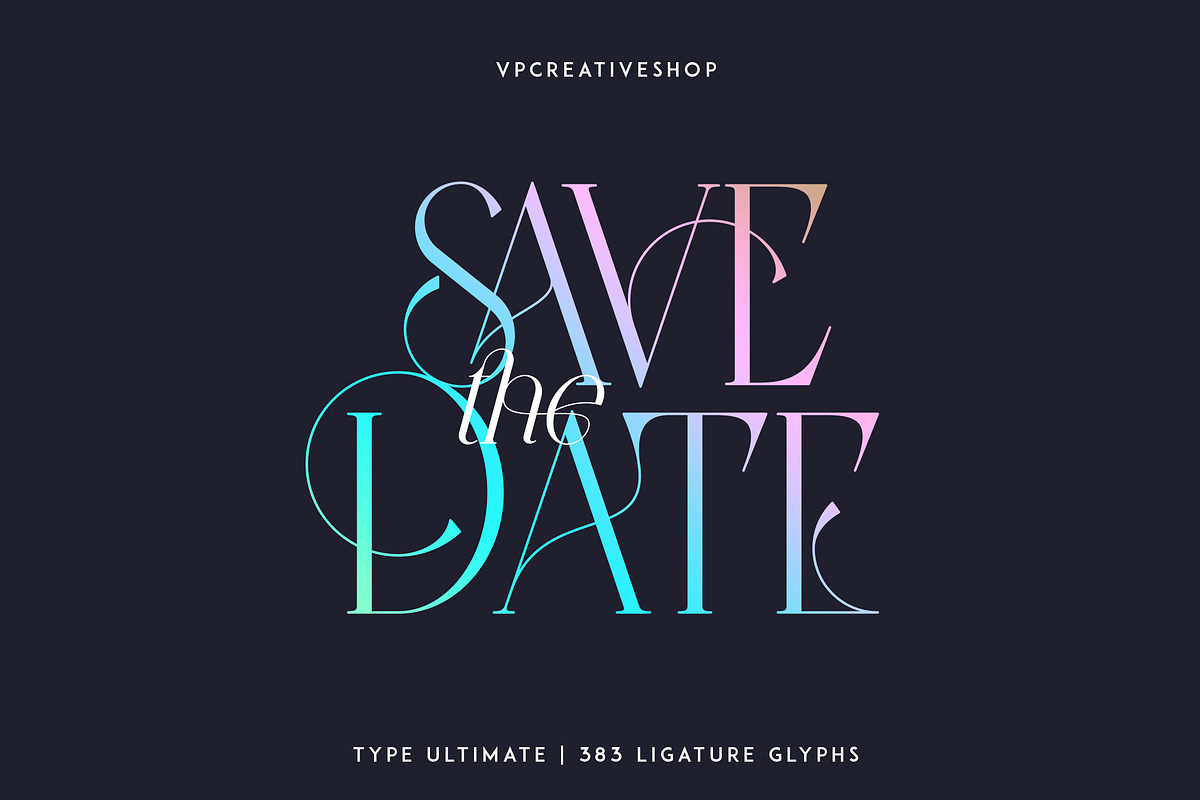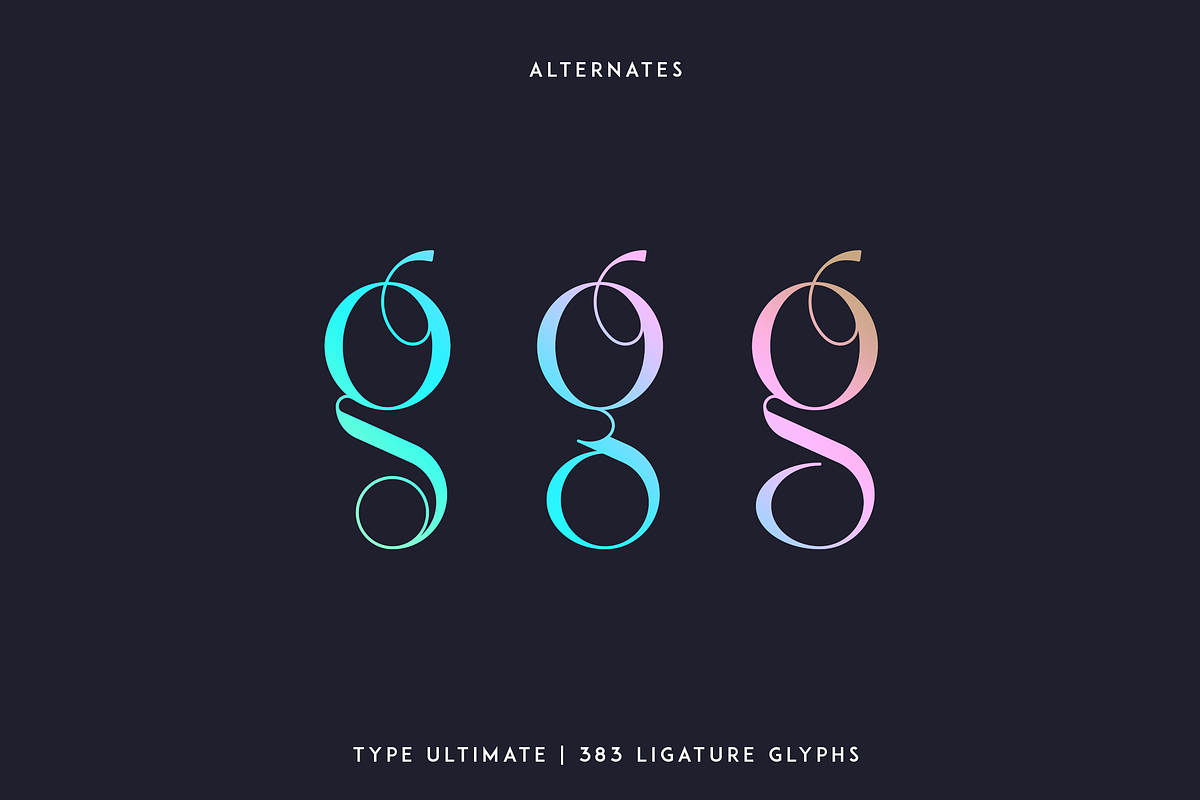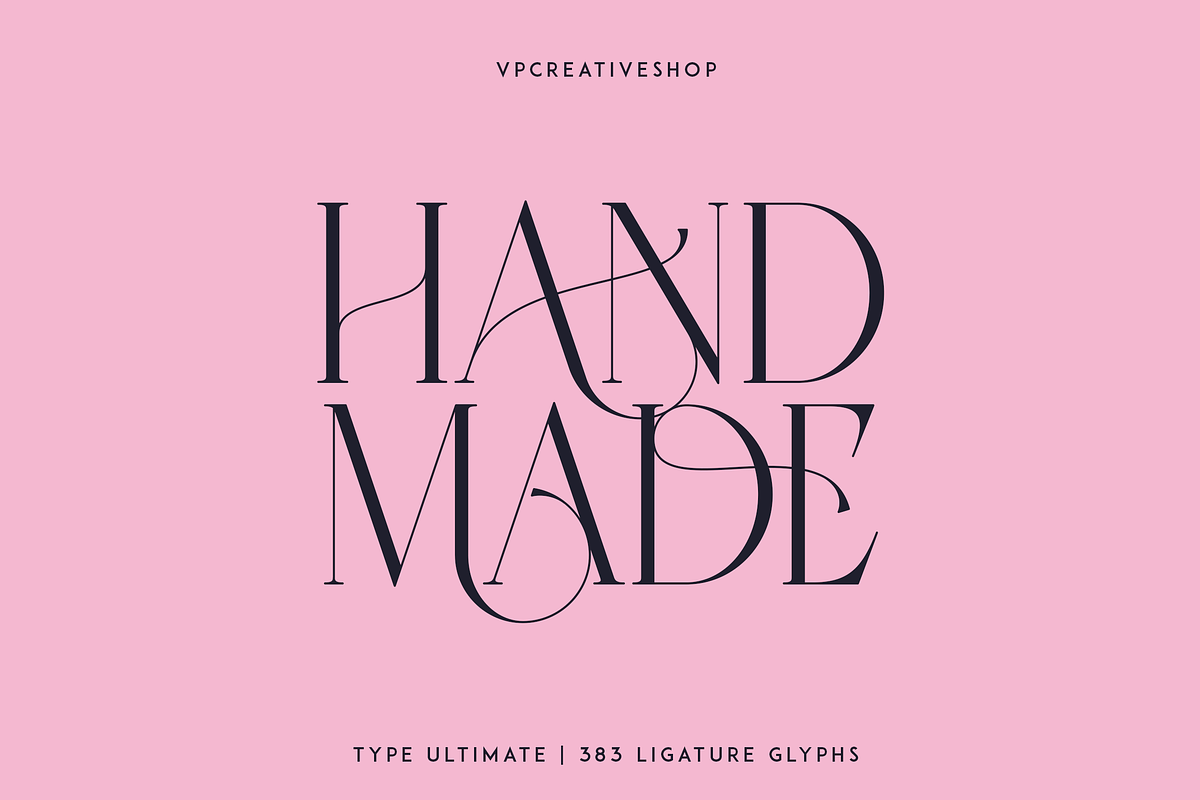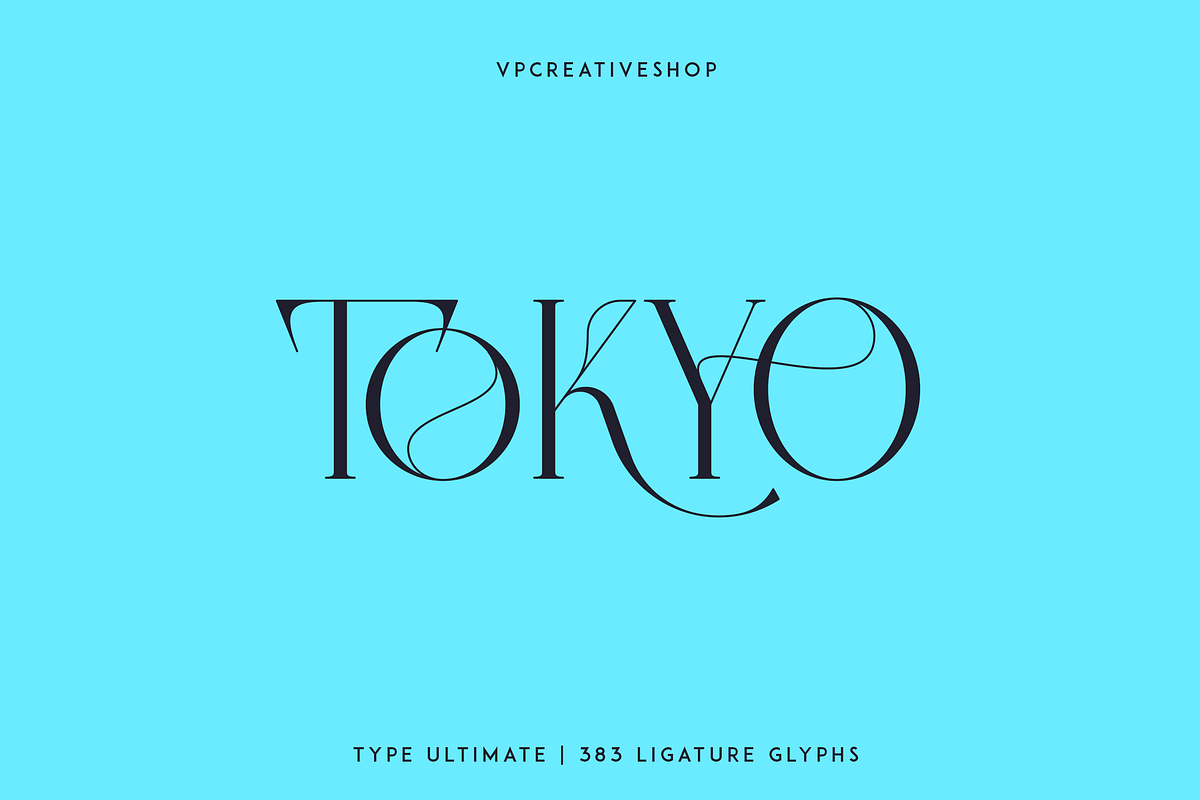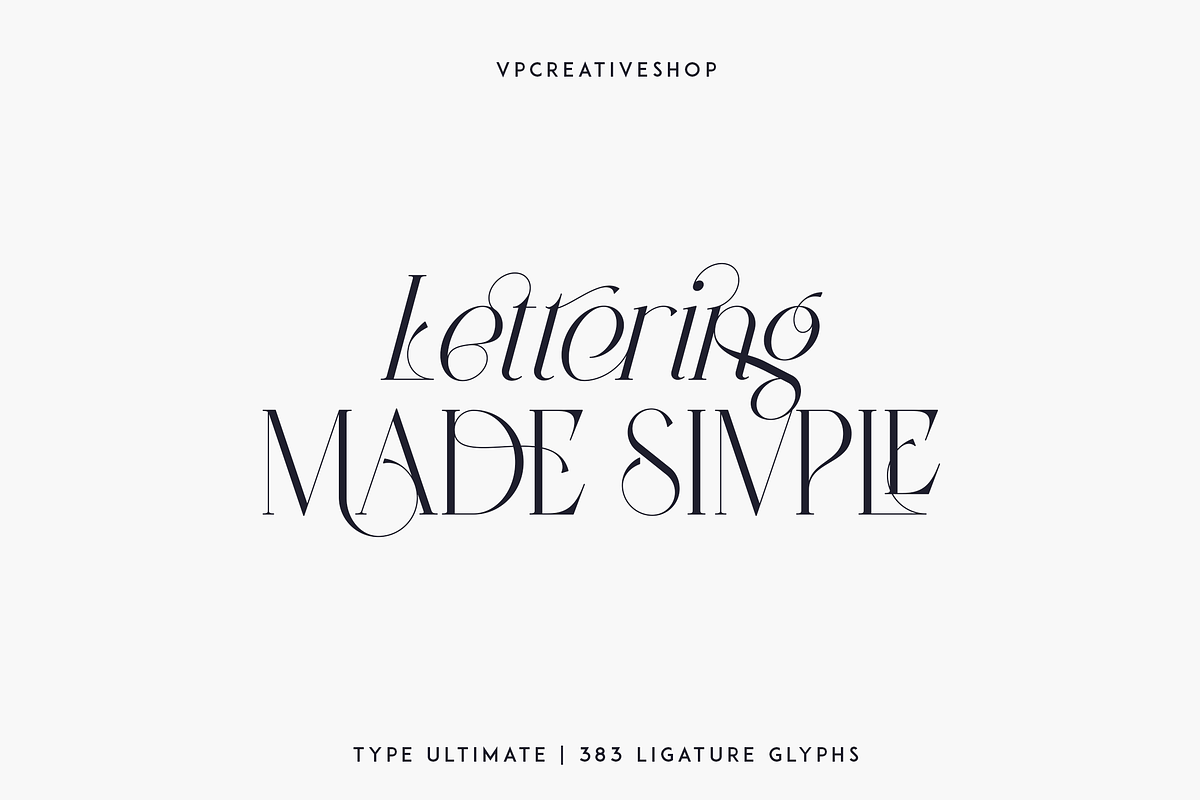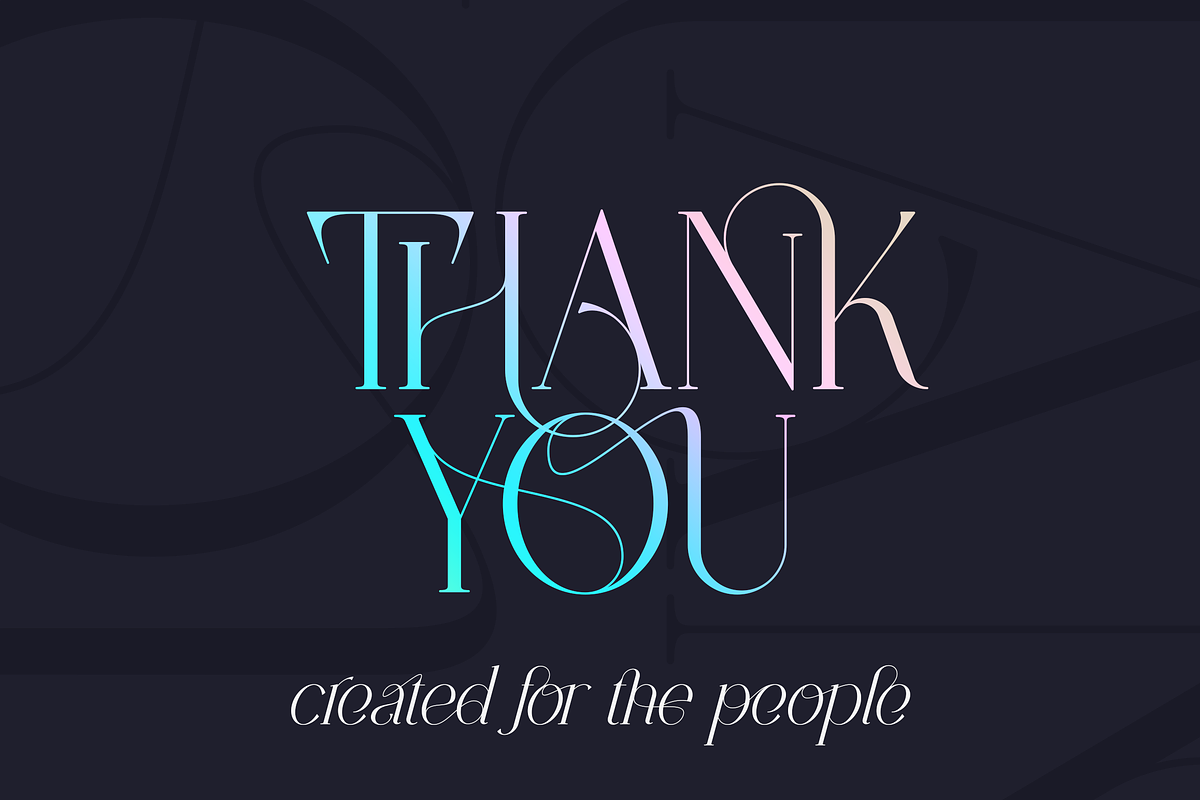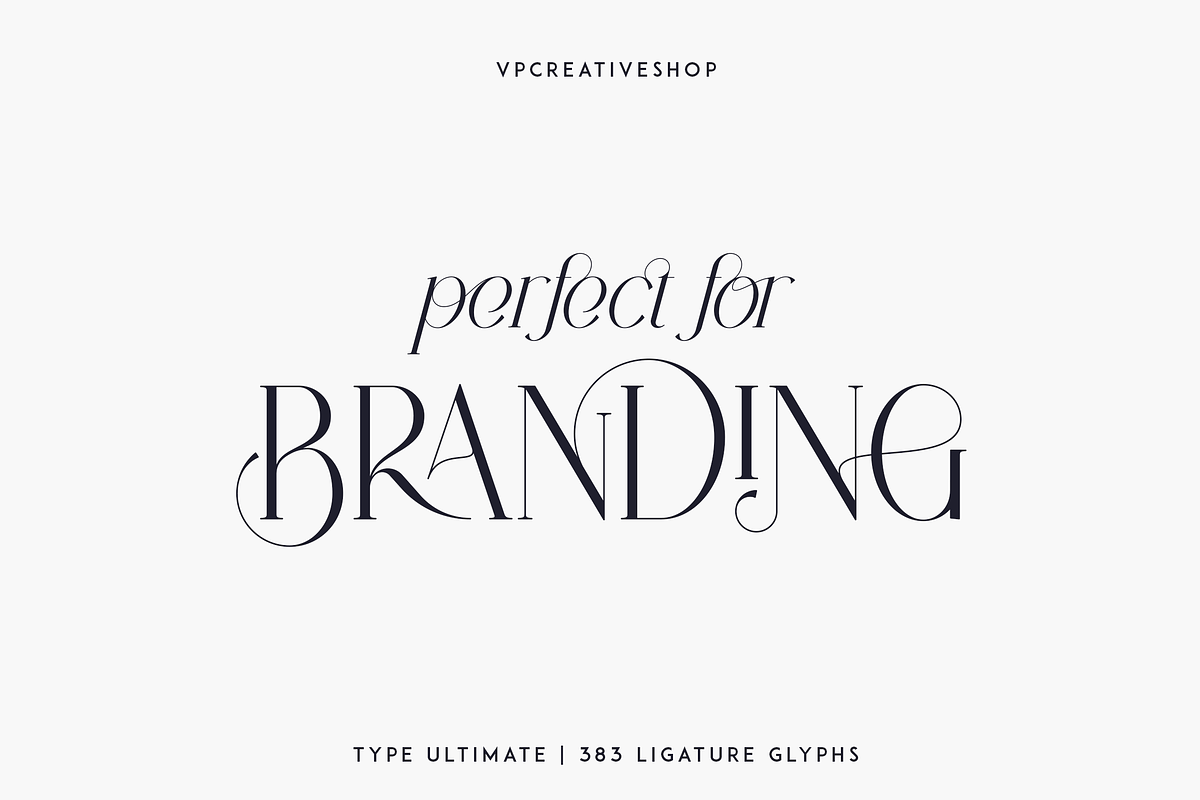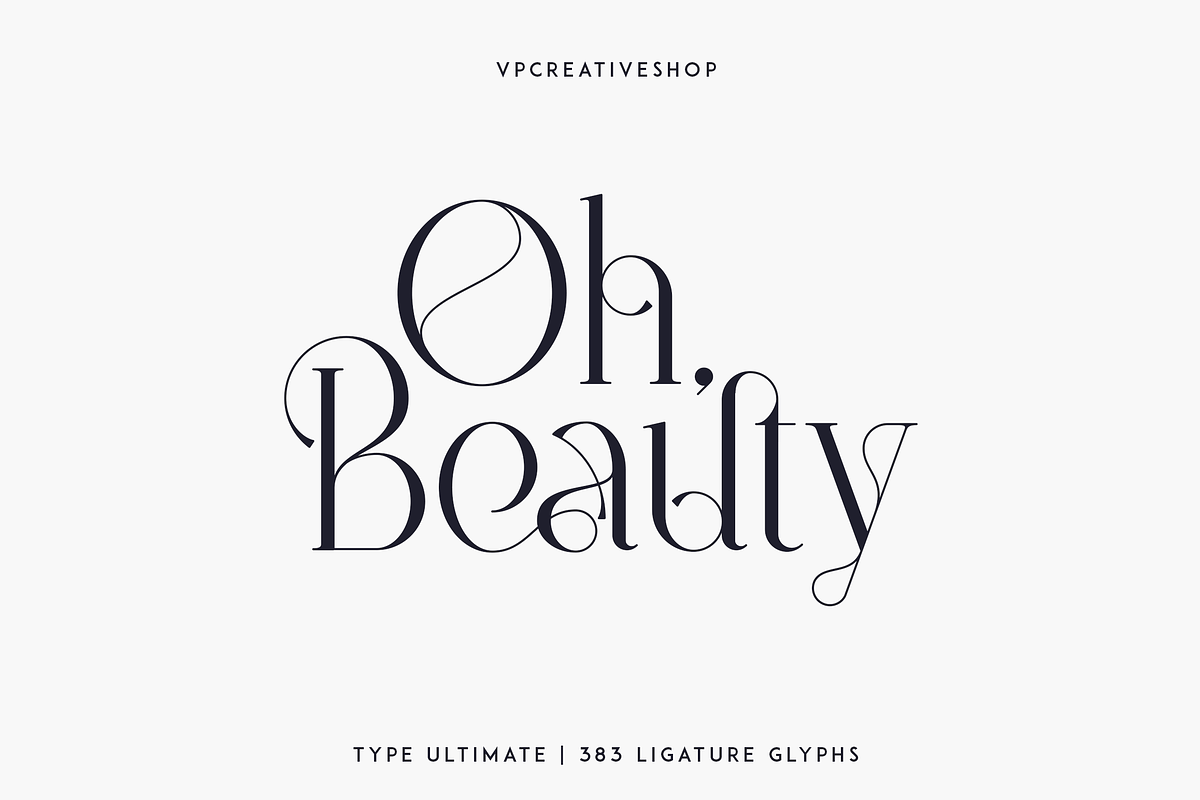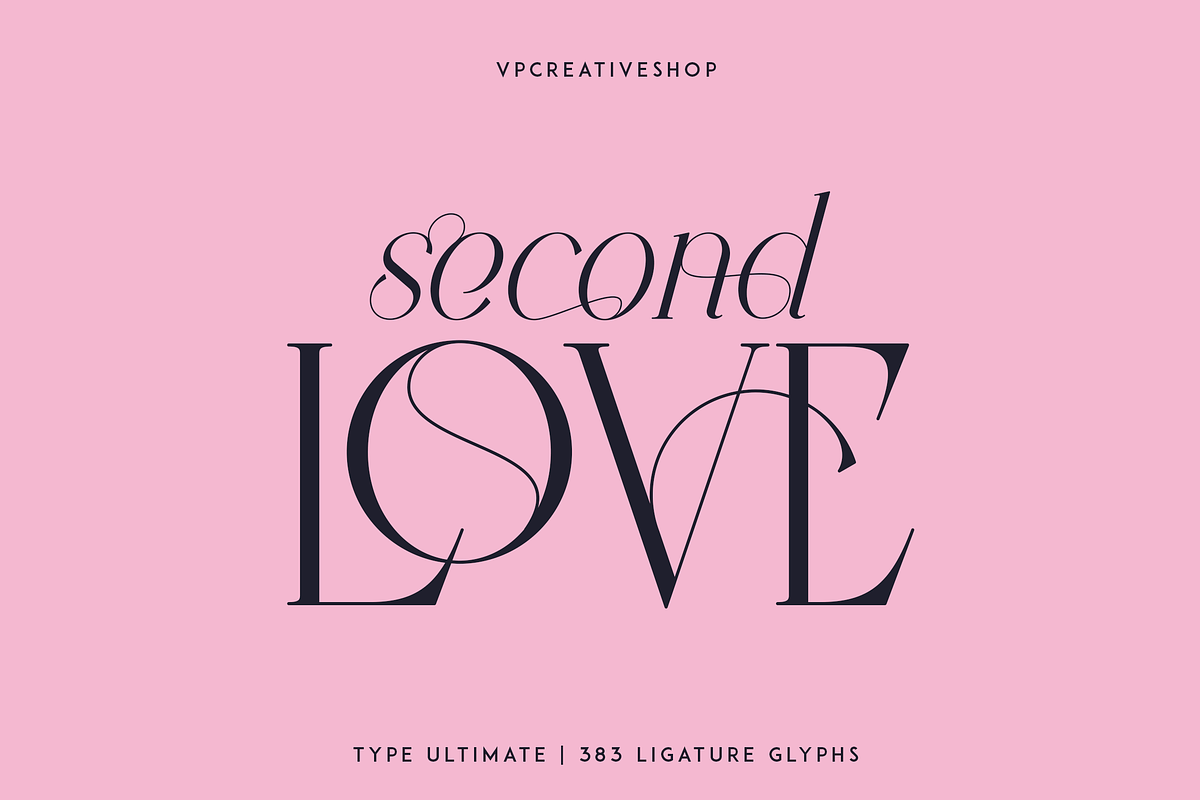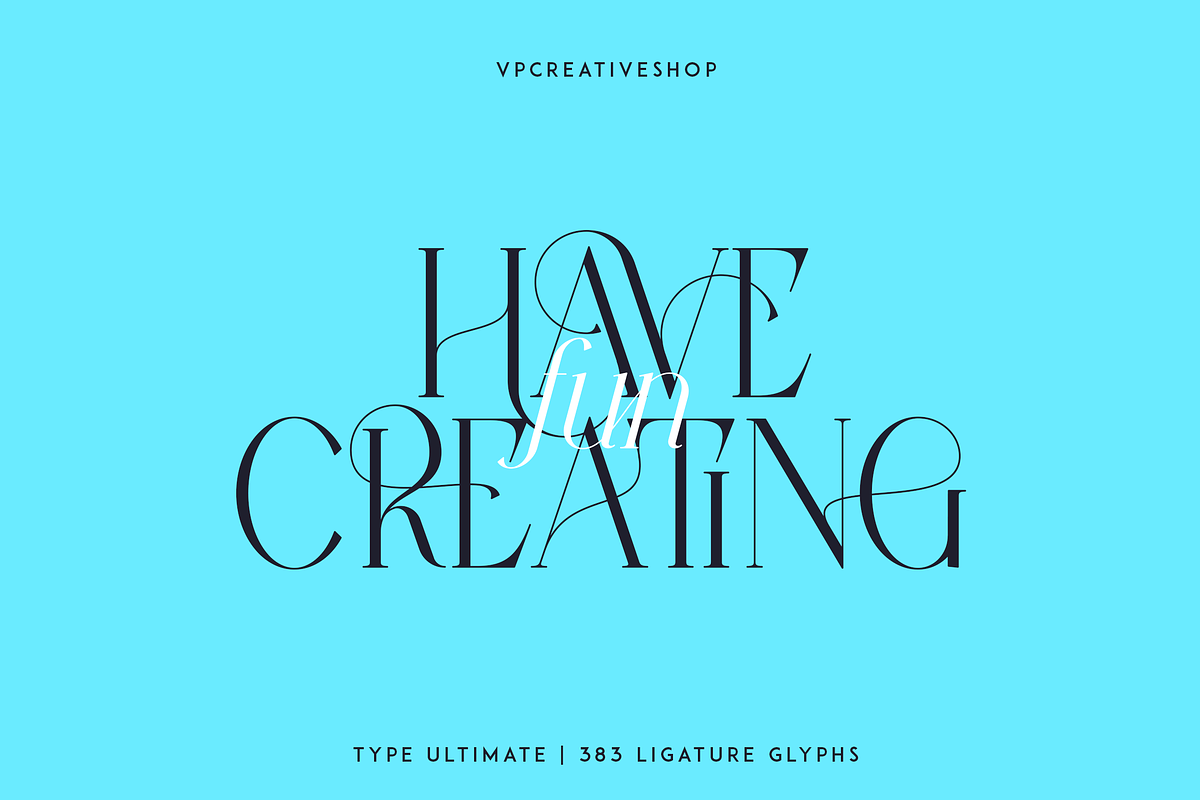
Type Ultimate - serif logo font
Type Ultimate is an exquisite serif font that combines elegance and sophistication. It comes in regular and italic versions, each containing a stunning collection of 383 ligature glyphs and alternate glyphs, as well as 26 swashes for both regular and italic versions. With its extensive character set, Type Ultimate supports a wide range of languages, making it a versatile choice for various projects.
This font is perfect for creating a memorable logo, establishing a strong brand identity, and making headlines that stand out. Its timeless and refined design also makes it an excellent choice for elegant wedding invitations and other formal occasions. Overall, Type Ultimate is a font that exudes beauty and refinement, adding a touch of sophistication to any project it's used in.
Uppercase - AB,AC,AD,AG,AK,AL,AM,AN,AP,AR,AS,AT,AV,AY,BE,BL,BO,BU,CE,CH,CK,CO,CT,DE,DI,DO,EA,ED,EE,EF,EI, EL,EM,EN,EP,ER,ES,ET,EV,EX,EY,FA,FE,FF,FI,FO,FR,FT,FU,GA,GE,GH,GO,GR,HA,HE,HI,HO,HT,KE,KI,KN,LA, LD,LE,LF,LI,LL,LO,MA,ME,MI,MM,MO,MP,MU,NA,NC,ND,NE,NG,NK,NO,NS,NT,NY,OA,OD,OK,OL,OM,ON, OO,OP,OR,OS,OT,OU,OW,PA,PE,PL,PO,PP,PR,RA,RD,RE,RI,RO,RR,RS,RT,RY,SA,SE,SH,SO,ST,SU,TA,TE,TH,TI, TL,TO,TR,TS,TT,TU,UG,UL,UN,UR,US,UT,VE,VI,WE,WH,WI,WO,YO,YS,MEN,WER,FRO,RON,ROM,THE,AND, ING,HER,HAT,HIS,THA,ERE,FOR,ENT,ION,TER,WAS,YOU,ITH,VER,ALL,THI,TIO,OUL,ULD,IGH,GHT,AVE, HAV,ICH,HIC,HIN,HEY,ATI,EVE,HING,WERE,FROM,THAT,THER,TION,OULD,IGHT,HAVE,THIS,THIN,THEY, ATIO,EVER,MENT
Lowercase - ab,ad,ag,ai,ak,al,am,an,ap,as,at,av,ay,ba,be,bl,bo,bu,ca,ce,ch,ck,co,ct,de,di,do,ea,ec,ed,ee,ef,eg,ei,ej,el, en,ep,es,et,ev,ew,ey,fa,fe,fi,fo,fr,fu,ga,ge,gh,gi,gr,ha,he,hi,ho,ht,ic,id,ie,ik,il,im,in,io,ir,is,it,iv,ke,ki,kn,la,ld,le,lf, li,lo,ly,ma,me,mi,na,nc,nd,ne,ng,ni,nk,nl,no,nt,ny,oa,oc,od,of,oi,ok,ol,om,on,oo,op,ot,ou,ov,ow,pa,pe,pi,pl, po,pp,qu,ra,rd,re,ri,rm,rn,ro,rr,rs,rt,ru,ry,sa,se,sh,si,so,sp,ss,st,su,ta,te,th,ti,tl,to,ts,tt,tu,uc,ug,um,un,up,ur,us, ut,va,ve,wa,we,wo,xp,ye,yo,ys,men,wer,fro,rom,ron,the,and,ing,her,hat,tha,ere,for,ent,ion,ter,you,ver,thi, ght,ave,hey